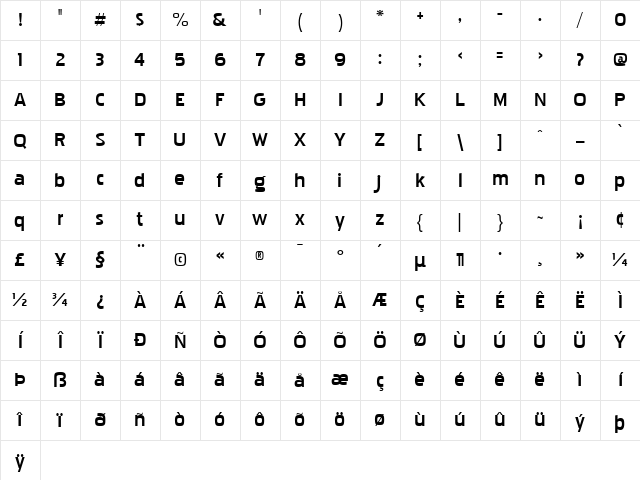
Pakenham Xp Bold
Design Context for Pakenham Xp
Pakenham Xp is a composed and adaptable typeface that performs quietly and consistently across a wide range of design contexts. Its bold stroke weight gives it real presence on the page.